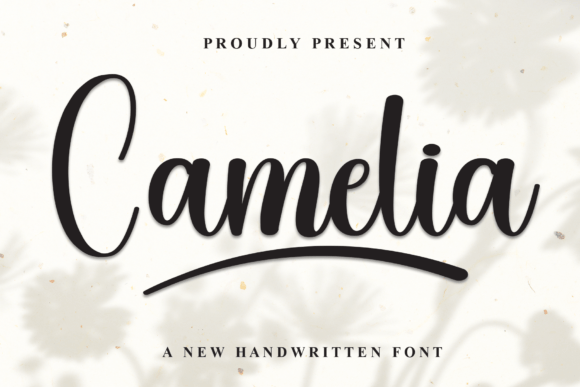
The Power of Handwritten Fonts: Discovering Camelia
Have you ever been in the middle of a design project, and suddenly, you’re stuck on finding the perfect font? I recall a particularly frustrating moment when I was working on a client’s wedding invitation. The design was almost complete, but the font just wasn’t right. It was too generic, too boring, and didn’t convey the warmth and personality the couple wanted. That’s when I stumbled upon Camelia, a clean and bold handwritten font that changed everything.
First Impressions: A Review of Camelia
Camelia is more than just a font – it’s a statement piece. Its bold, yet elegant style makes your words stand out beautifully. Here’s what I love about Camelia:
- ✨ Clean and readable: Camelia’s neat handwriting style makes it easy to read, even at smaller font sizes.
- ✅ Perfect for personal projects: Whether you’re creating invitations, greeting cards, or social media posts, Camelia adds a personal touch that’s hard to replicate with generic fonts.
- 💬 Versatile: From formal events to casual social media posts, Camelia’s adaptability makes it a valuable addition to any designer’s toolkit.
While Camelia is an excellent font, it’s not without its quirks:
- 🤔 Limited use in very formal contexts: While Camelia is elegant, it may not be suitable for very formal projects, such as corporate reports or academic papers.
- ⚠️ Glyph limitations: Like many handwritten fonts, Camelia may not have an extensive range of glyphs or special characters, which could limit its use in certain projects.
The Story Behind Camelia
Camelia was designed with the intention of creating a clean, yet expressive handwritten font. Inspired by the elegance of calligraphy and the spontaneity of handwriting, Camelia’s creator aimed to produce a font that would add a personal touch to any design project. While the exact story behind Camelia’s creation may be unknown, its versatility and charm have made it a favorite among designers.
| Is Camelia suitable for body text? | While Camelia is readable, it’s best suited for headings and short paragraphs due to its bold style. |